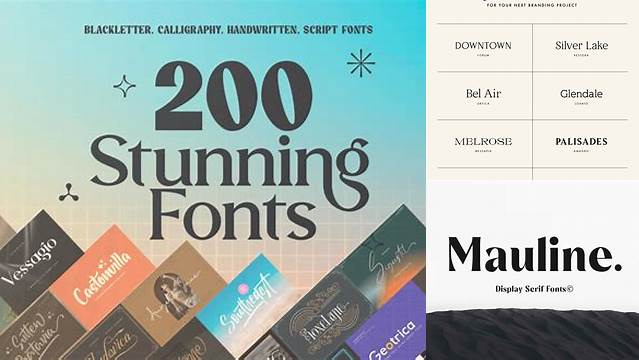
Free Serif Fonts 2026: Download The Best Typefaces
Are you guys on the hunt for some amazing serif fonts to elevate your designs in 2026? Look no further! Serif fonts, with their classic and elegant strokes, are a timeless choice for a wide range of projects, from branding and editorial design to websites and more. In this comprehensive guide, we'll dive deep into the world of serif fonts, exploring their history, characteristics, and, most importantly, where you can find free serif fonts to download and use in your creative endeavors.
What are Serif Fonts?
Let's start with the basics. Serif fonts are characterized by the small decorative strokes, or "serifs," that extend from the main strokes of the letters. These serifs give the fonts a more traditional and formal appearance, making them ideal for projects that require a touch of sophistication and readability. Think of classic books, newspapers, and formal invitations – chances are, they're using a serif font. The serifs help guide the reader's eye across the page, making them particularly well-suited for large blocks of text.
Historically, serifs are believed to have originated in Roman lapidary inscriptions, where the strokes were added to the ends of letters to compensate for the unevenness created by carving letters into stone. Over time, these serifs became an integral part of the typeface design, evolving into the diverse range of serif fonts we know today. From the elegant curves of Times New Roman to the sturdy presence of Garamond, each serif font has its own unique personality and application.
When selecting a serif font, it's crucial to consider the overall tone and message of your project. A traditional serif like Times New Roman might be perfect for a formal document, while a more contemporary serif like Playfair Display can add a touch of modern elegance to a website header. Understanding the nuances of different serif styles will allow you to make informed choices and create visually compelling designs that resonate with your audience. Experimenting with various serif fonts is key to discovering the perfect match for your specific needs. Don't be afraid to try out different combinations and see how they impact the overall look and feel of your design.
Why Use Serif Fonts in 2026?
In the ever-evolving landscape of design, serif fonts continue to hold their own, proving their enduring appeal and versatility. While modern sans-serif fonts have gained popularity for their clean and minimalist aesthetic, serif fonts offer a unique set of advantages that make them a valuable asset in any designer's toolkit. So, why should you consider using serif fonts in your projects in 2026?
Firstly, serif fonts exude a sense of trust and authority. Their traditional roots and association with printed materials like books and newspapers lend them an air of credibility and reliability. This makes them an excellent choice for projects that require a sense of professionalism and trustworthiness, such as legal documents, academic papers, and corporate branding. When you want to convey a message of stability and expertise, a well-chosen serif font can be your best ally.
Secondly, serif fonts often offer superior readability, especially in long blocks of text. The serifs act as visual cues, guiding the reader's eye across the page and preventing fatigue. This makes them ideal for body text in books, articles, and websites. While sans-serif fonts can sometimes appear cluttered and difficult to read in large amounts, serif fonts provide a more comfortable and engaging reading experience. Consider the user experience when selecting your font – if your content is text-heavy, a serif font will likely be the more reader-friendly option.
Thirdly, serif fonts can add a touch of elegance and sophistication to your designs. Their graceful curves and classic proportions evoke a sense of timeless beauty, making them perfect for projects that aim to convey a sense of luxury and refinement. From high-end fashion brands to elegant wedding invitations, serif fonts can elevate your designs and create a lasting impression. Don't underestimate the power of a well-chosen serif font to transform your project from ordinary to extraordinary.
Finally, serif fonts are incredibly versatile and can be adapted to suit a wide range of design styles. Whether you're aiming for a traditional, modern, or even quirky aesthetic, there's a serif font out there that can fit the bill. By playing with different weights, styles, and pairings, you can achieve a unique and personalized look that reflects your brand's identity. The key is to experiment and explore the vast world of serif fonts to discover the perfect match for your vision. In 2026, the versatility of serif fonts will continue to make them a staple in the design world.
Where to Find Free Serif Fonts in 2026
Okay, guys, now for the exciting part: where can you actually find these amazing serif fonts for free in 2026? The internet is a treasure trove of resources, and there are plenty of websites offering high-quality free fonts for personal and commercial use. However, it's crucial to be mindful of licensing restrictions and ensure that you're using the fonts legally. Let's explore some of the best places to find free serif fonts in 2026:
Google Fonts: This is a fantastic resource for web-friendly fonts, offering a vast library of open-source typefaces that are free to use for any project. Google Fonts features a diverse selection of serif fonts, ranging from classic options like Roboto Slab and Merriweather to more contemporary choices like Playfair Display and Libre Baskerville. The platform also makes it easy to preview and download fonts directly to your computer or embed them into your website. With its user-friendly interface and extensive collection, Google Fonts is a go-to resource for designers and developers alike. Make sure to explore their categories and filters to narrow down your search and discover hidden gems.
Remember, typography is an art form, and the best way to master it is to experiment, explore, and practice. Don't be afraid to try out different fonts, pairings, and techniques to find what works best for you. And most importantly, have fun! With the right serif fonts in your arsenal, you'll be well-equipped to create stunning designs that stand the test of time. Happy designing!